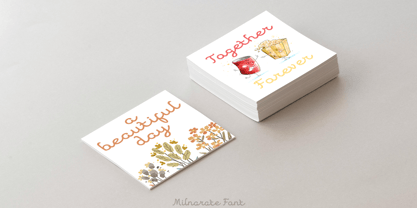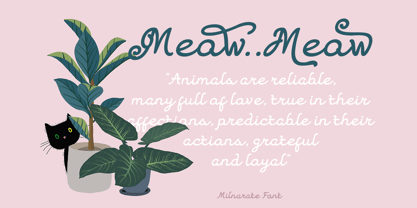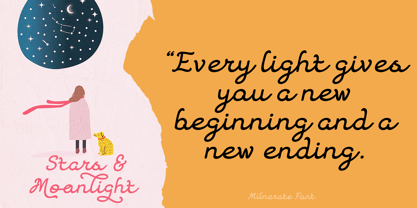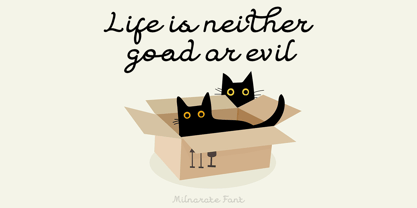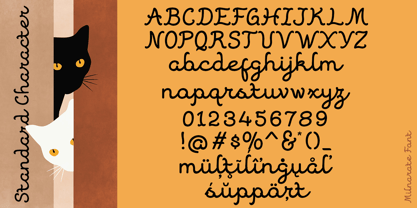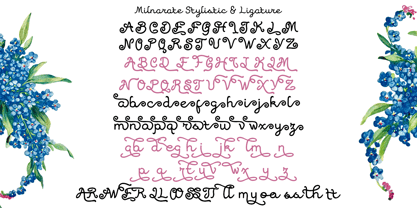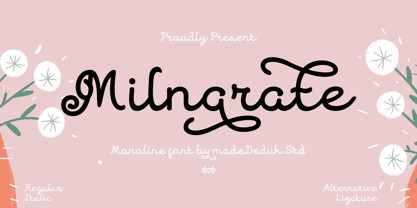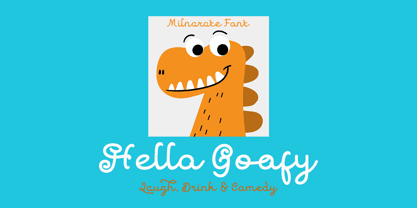
Milnarate
by madeDeduk
Milnarate is a monoline script typeface that features elegantly crafted glyphs, allowing for the creation of visually appealing and straightforward words. This font includes a curly style, offering numerous alternates and ligatures to enhance your designs. Its simplicity and refinement make it perfect for a variety of applications, including branding, product packaging, invitations, quotes, headlines, labels, posters, logos, and any advertising needs. Whether you're working on digital content or printed materials, this versatile font is designed to elevate your projects with its unique charm and character.